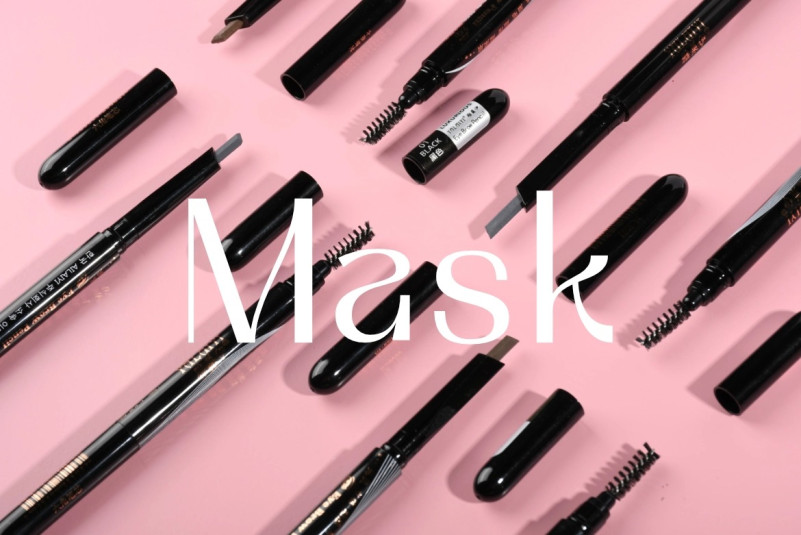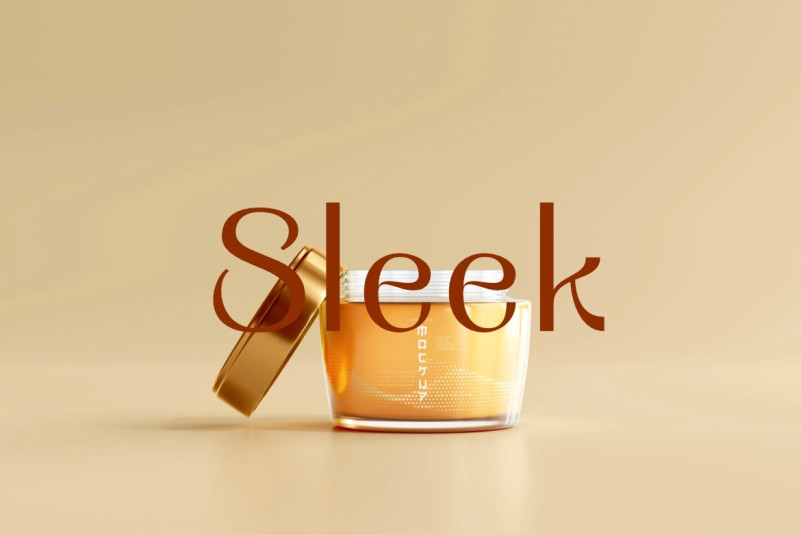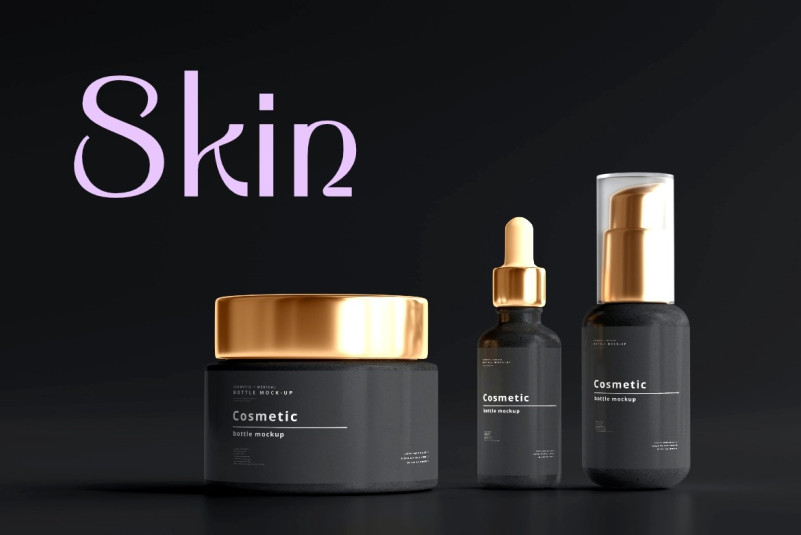
Lemonstyle Font
Lemonstyle Sans Serif Font, is a modern sans serif font. It’s perfect for posters, logos, magazines, cover books, banners, and much more!